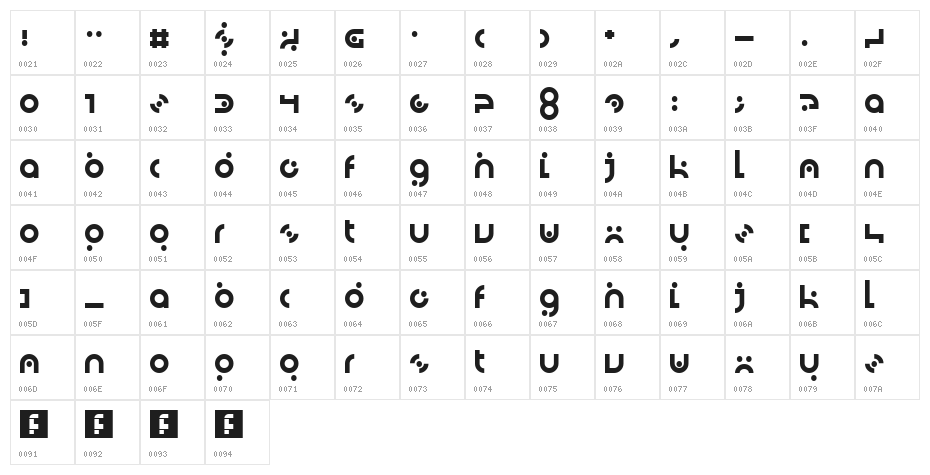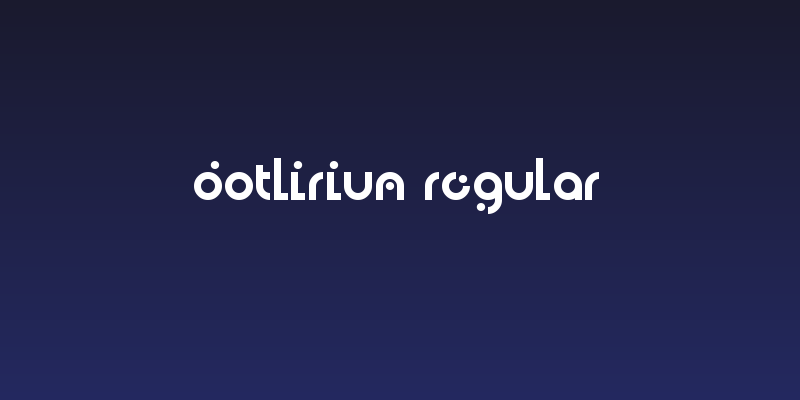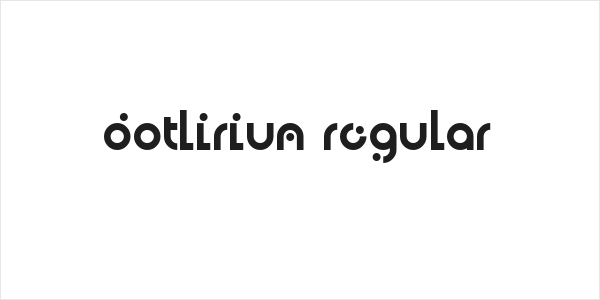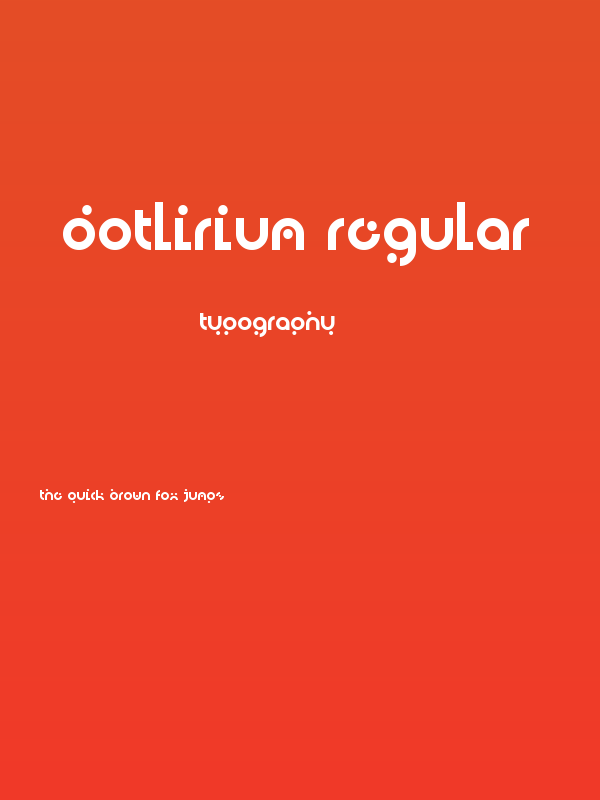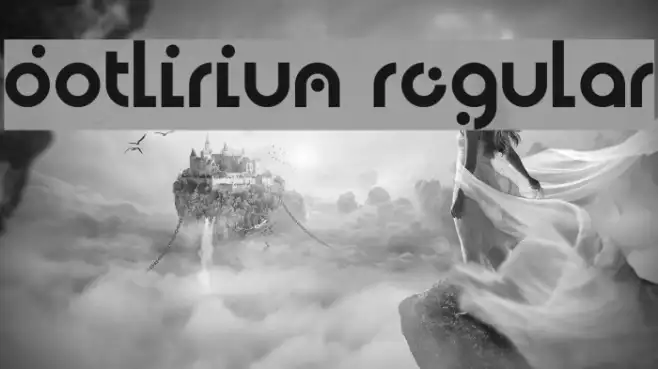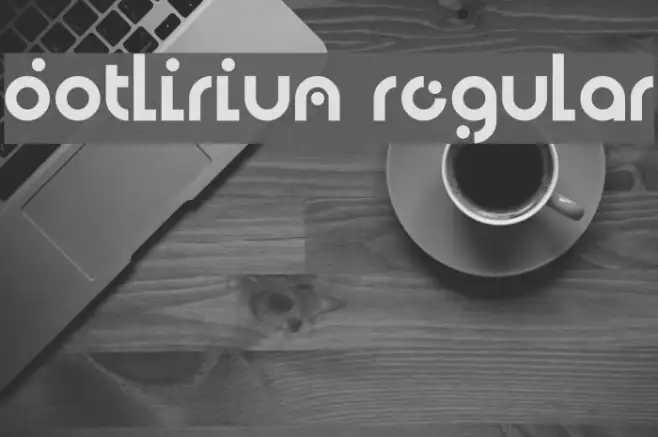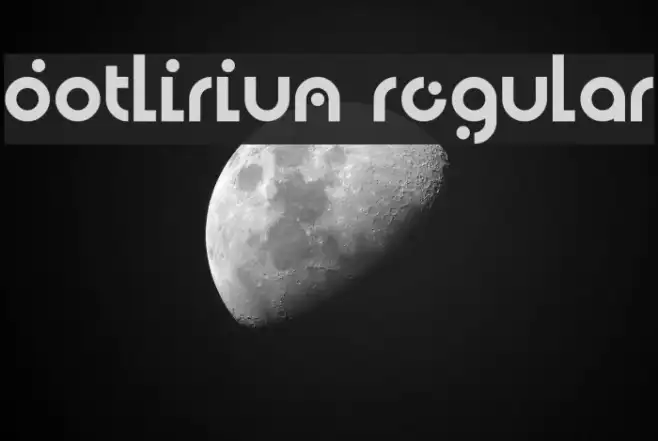
DotLirium Regular Font
DotLirium Regular Description
This font features a unique and futuristic design with circular and geometric elements. Each character is crafted with a combination of solid shapes and dots, creating a distinct and modern appearance. The font's bold and rounded forms give it a playful yet sophisticated look, making it stand out in any design. The consistent use of circular motifs across letters and numbers adds to its cohesive style. This typeface is ideal for projects that require a contemporary and eye-catching aesthetic.
| Proposed Projects | Ideal for sci-fi themed designs, tech branding, modern posters, and digital art projects. |